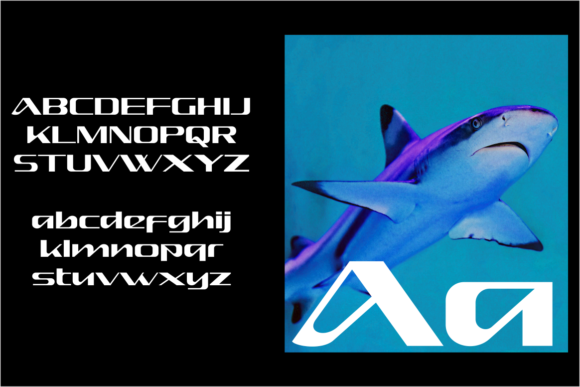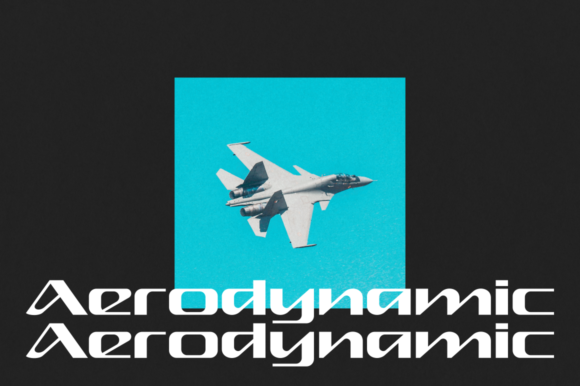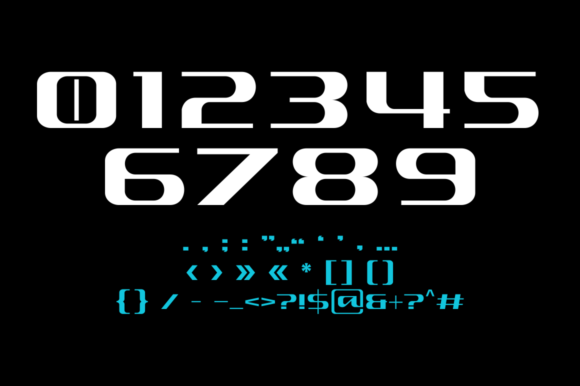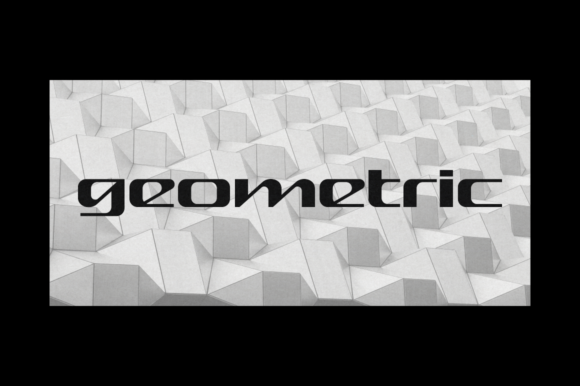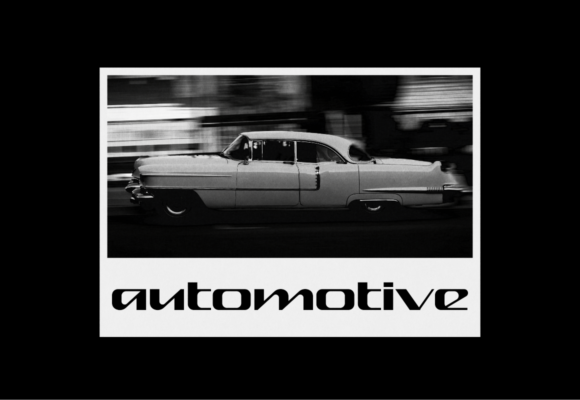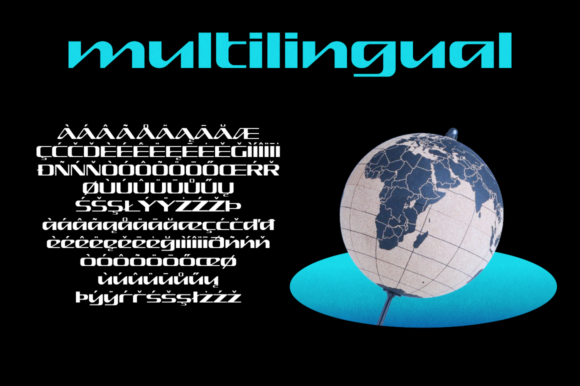
Introducing Arguman Font: A Modern Display Font with a Retro-Futuristic Twist
In the world of typography, fonts play a crucial role in conveying messages, expressing emotions, and creating visual identities. For designers and crafters, finding the perfect font can be a daunting task, especially when looking for something that stands out from the crowd. This is where Arguman Font comes in – a very modern display font that boasts a unique, retro, and futuristic style.
The Birth of Arguman Font
Arguman Font is a relatively new addition to the typography scene, designed to cater to the needs of modern designers and crafters who are looking for a font that can add a touch of nostalgia and futurism to their projects. The font’s creator aimed to craft a typeface that would blend the sleekness of modern design with the charm of retro aesthetics, resulting in a truly distinctive look.
Key Features of Arguman Font
So, what makes Arguman Font so special? Here are some of its key features:
- Unique Letterforms: Arguman Font features letterforms that are both futuristic and nostalgic, with clean lines, geometric shapes, and a hint of playfulness.
- Retro-Futuristic Style: The font’s retro-futuristic style is reminiscent of classic sci-fi movies, video games, and futuristic designs from the 80s and 90s.
- Modern Aesthetic: Despite its retro influences, Arguman Font has a distinctly modern feel, making it perfect for contemporary design projects.
- High Versatility: The font comes in various weights and styles, allowing designers to experiment with different looks and applications.
Use Cases for Arguman Font
Arguman Font is an incredibly versatile typeface that can be used in a wide range of design projects, including:
- Branding and Logo Design: The font’s unique style makes it perfect for creating memorable logos and brand identities.
- Poster Design: Arguman Font is ideal for creating eye-catching posters, flyers, and brochures that require a bold, attention-grabbing typeface.
- Digital Design: The font’s clean lines and geometric shapes make it suitable for digital applications, such as mobile apps, websites, and video games.
- Crafting and DIY Projects: Arguman Font can also be used in crafting and DIY projects, such as making custom signs, labels, and decorations.
Why Choose Arguman Font?
With so many fonts available, why should designers and crafters choose Arguman Font? Here are a few compelling reasons:
- Uniqueness: Arguman Font offers a distinctive look that sets it apart from more traditional fonts.
- Flexibility: The font’s versatility makes it suitable for a wide range of design projects and applications.
- Easy to Read: Despite its futuristic style, Arguman Font is easy to read, making it perfect for body text and headlines.
- Constantly Updated: The font’s creator is committed to updating and improving the font, ensuring that users have access to the latest features and improvements.
Arguman Font is an exceptional modern display font that offers a unique blend of retro and futuristic styles. Its versatility, readability, and distinctive look make it an excellent choice for designers and crafters looking to add a touch of nostalgia and futurism to their projects. Whether you’re working on a branding project, designing a poster, or crafting a custom sign, Arguman Font is definitely worth considering.